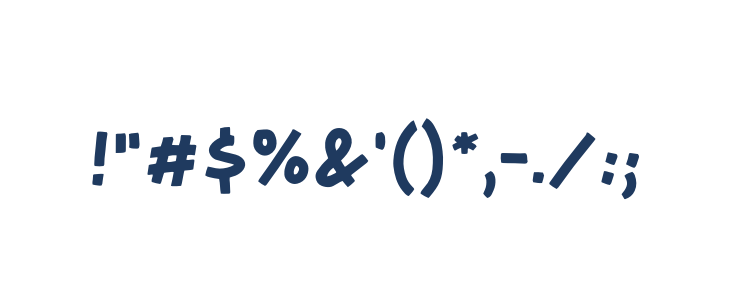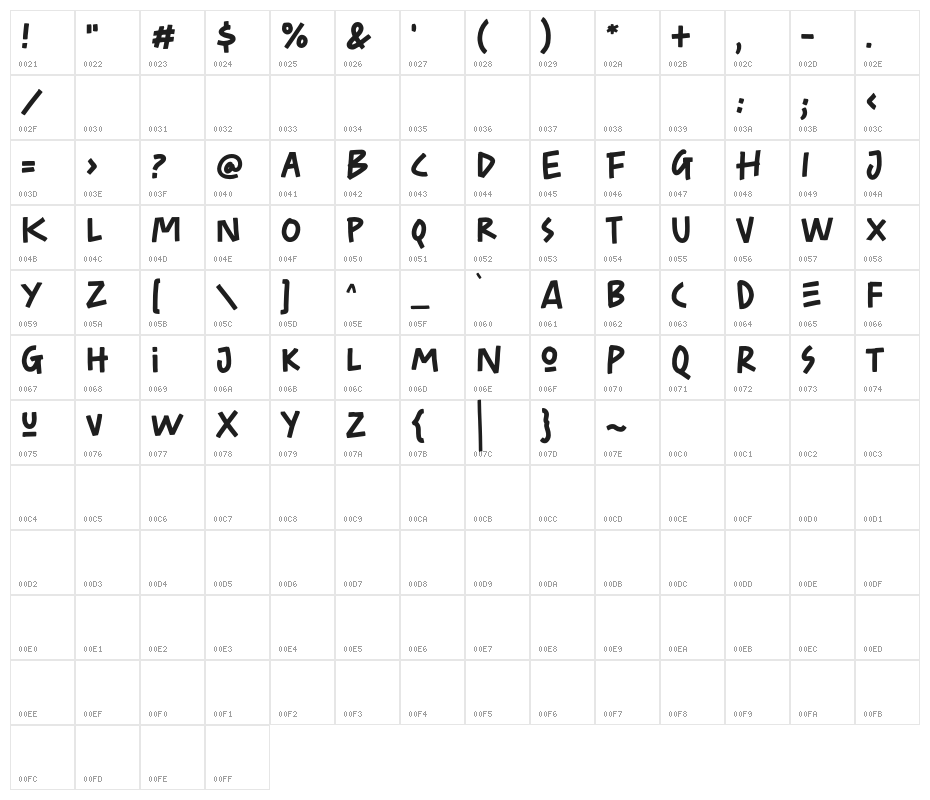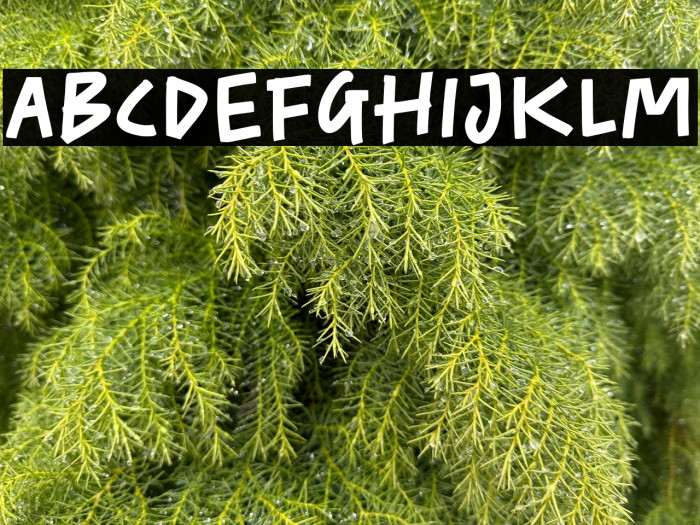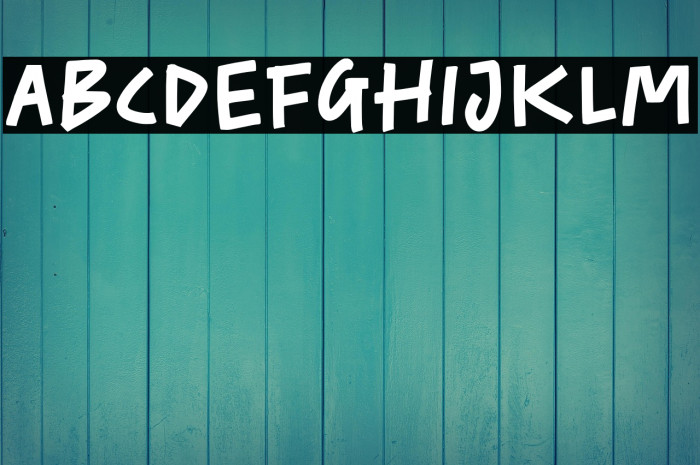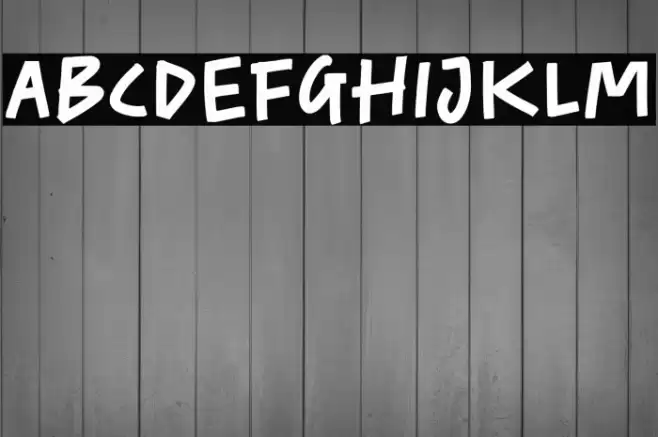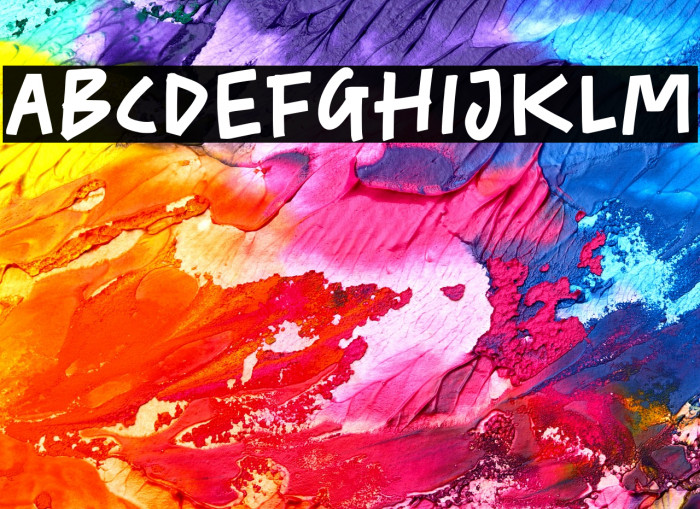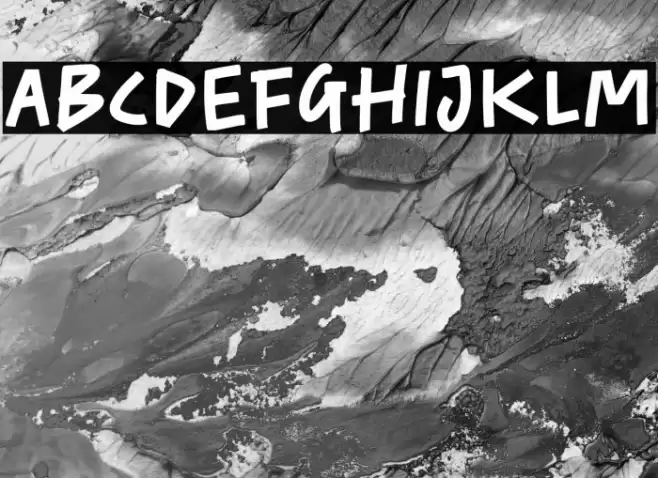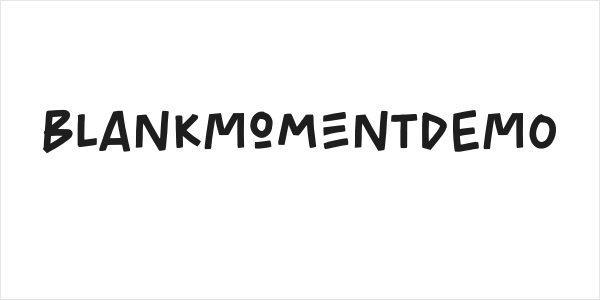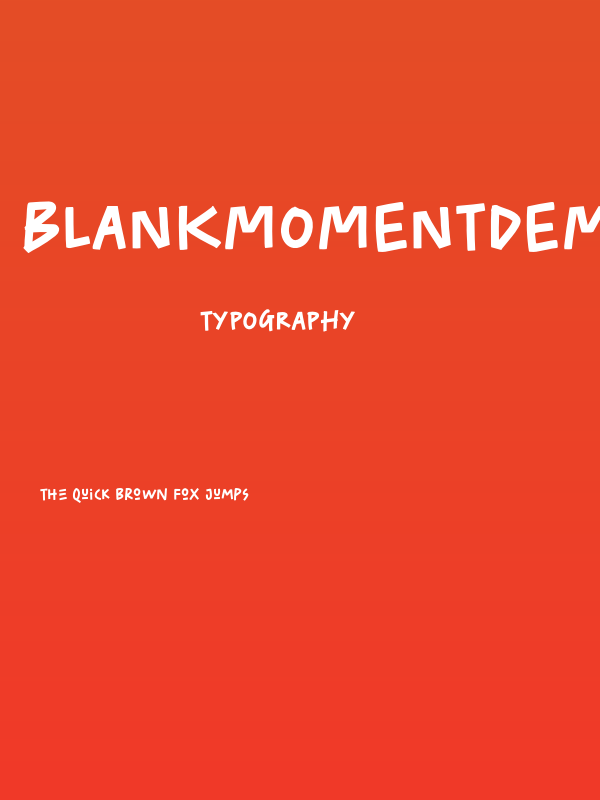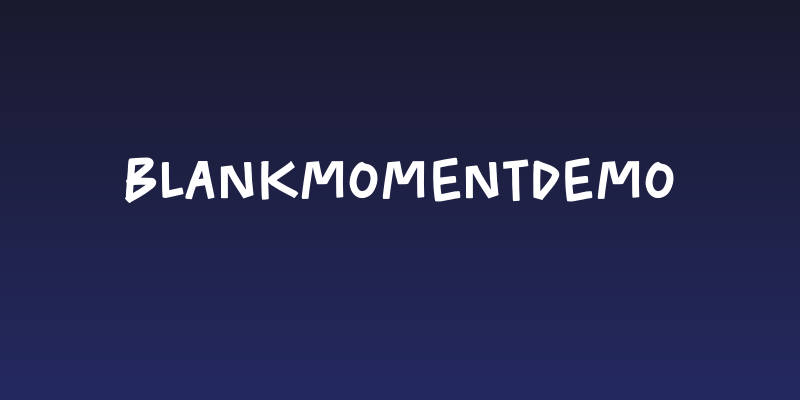
BlankMomentDEMO Font
BlankMomentDEMO Description
This font features a bold and playful style with a hand-drawn aesthetic. The characters are slightly irregular, giving it a casual and informal feel. The uppercase and lowercase letters maintain a consistent thickness, contributing to a cohesive look. The strokes are thick and rounded, which adds to the font's friendly and approachable nature. The special characters and numbers are designed with the same playful style, ensuring uniformity across all glyphs. This font is ideal for projects that require a touch of whimsy and creativity.
| Proposed Projects | Perfect for children's books, posters, greeting cards, and playful branding. |